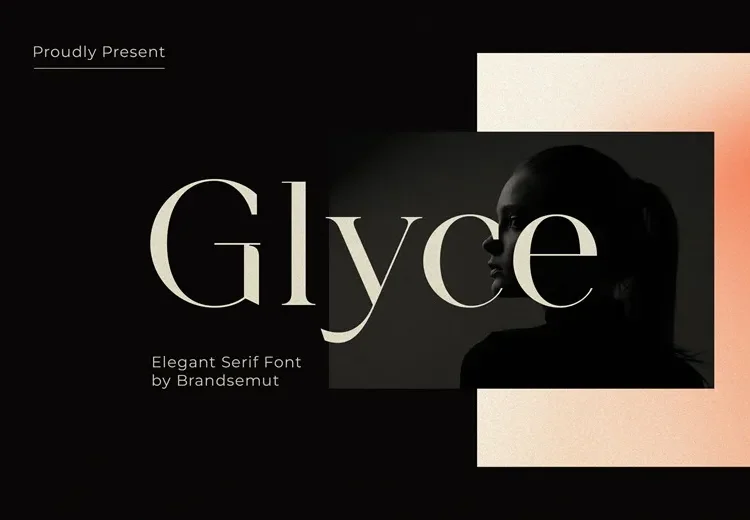
Glyce Font
Glyce is a sophisticated serif font inspired by the timeless appeal of traditional typefaces like Times New Roman, yet it offers a modern twist. With its clean, soft curvatures and precise cuts, Glyce exudes an elegant charm that enhances the visual appeal of any project.
Key Features of Glyce
1. Elegant Design:
Glyce’s refined serif structure combines traditional elements with contemporary aesthetics, creating a font that feels both classic and modern.
2. Versatile Applications:
From headings and logos to magazine layouts and product packaging, Glyce is highly adaptable to various design needs.
3. Clean and Polished Look:
The smooth curvature and clean-cut details of Glyce make it ideal for projects requiring a professional and polished appearance.
Best Uses for Glyce
• Headings and Titles: Glyce’s strong presence makes it perfect for creating impactful headings in print and digital media.
• Logo and Branding: The font’s timeless elegance enhances brand identity and helps establish a sophisticated image.
• Magazines and Editorials: Its clean and polished look makes it ideal for magazine layouts and long-form articles.
• Invitations and Stationery: Glyce adds a touch of class and refinement to wedding invitations, event cards, and other printed materials.
• Product Packaging: Elevate packaging designs with Glyce’s graceful serif style, giving products a high-end feel.
Why Choose Glyce?
Glyce seamlessly blends elegance and functionality, making it a must-have font for designers seeking a timeless yet modern typeface. Its clean design and versatility make it suitable for personal and professional projects, ensuring that every piece of work stands out with class and sophistication.